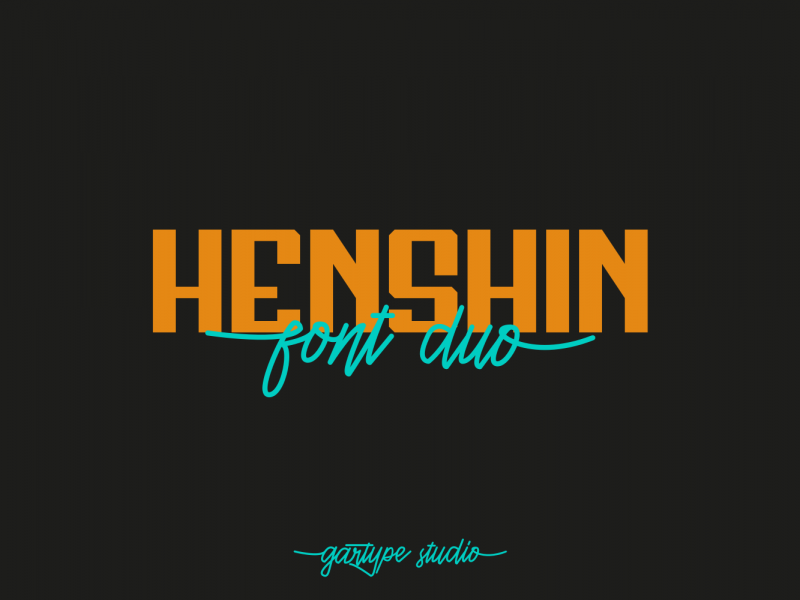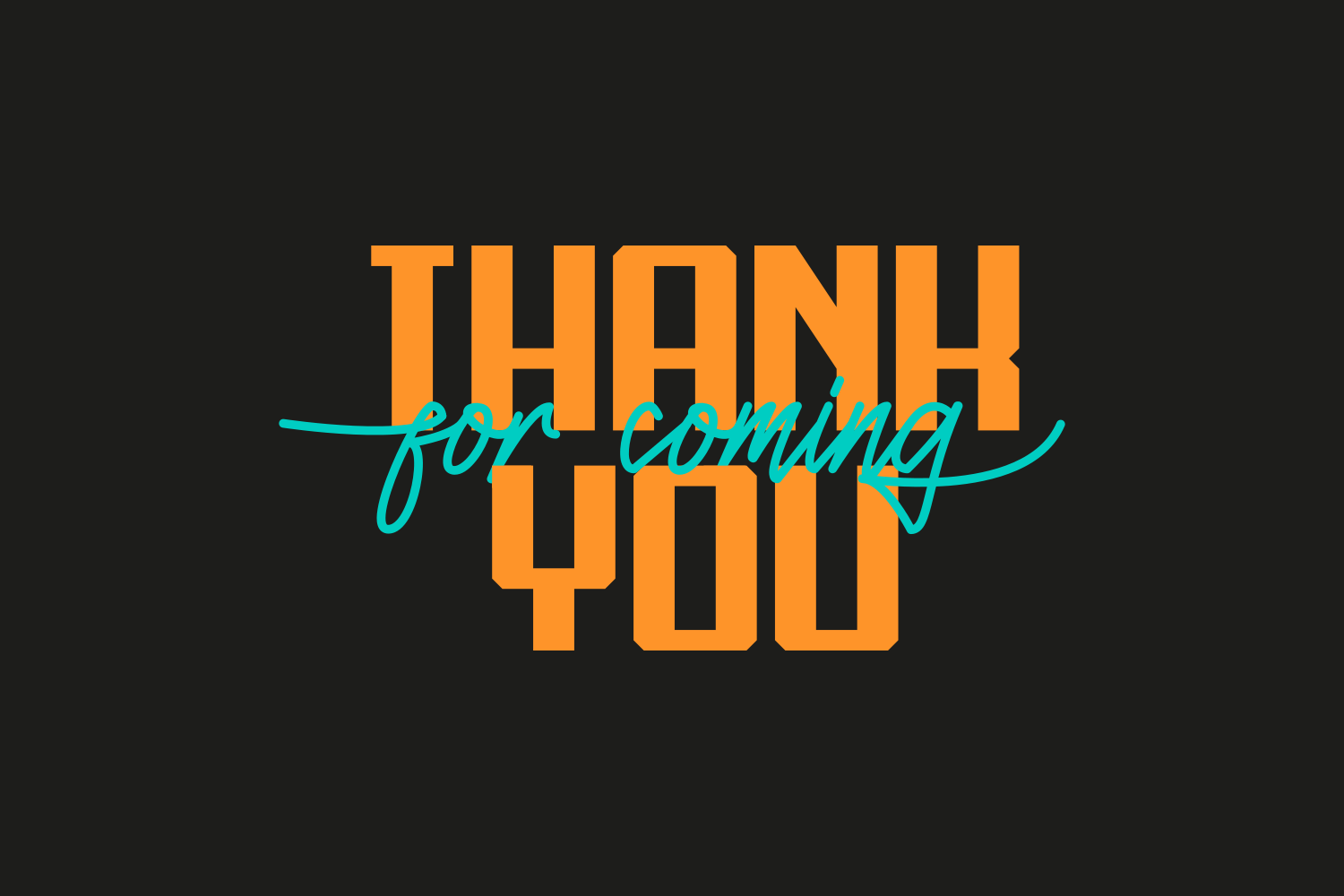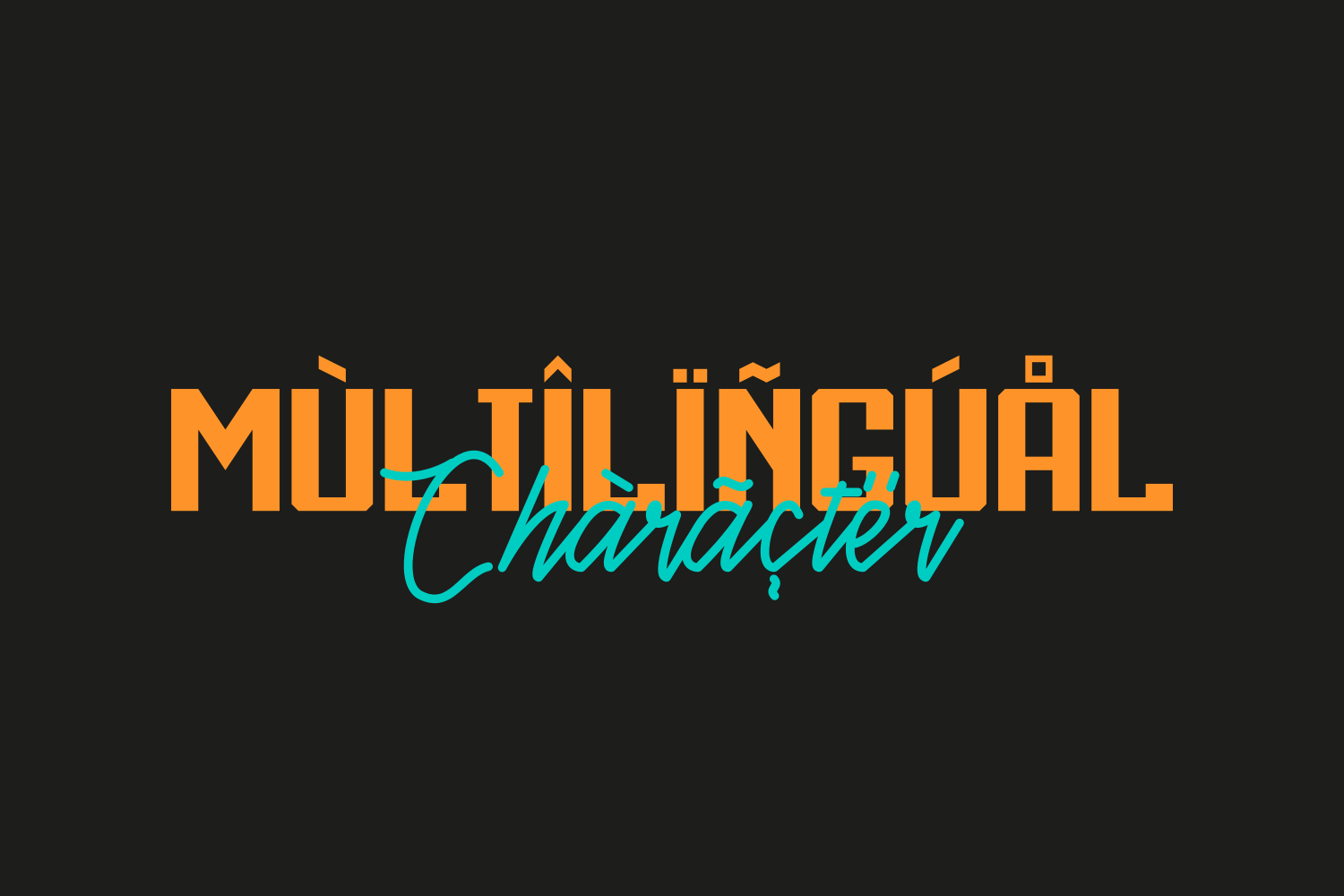
Henshin Script Font
Knowing the font duo is very good products,then we also make our new product in font duo category. Introducing Henshin font duo is a combination of sans and script fonts that combine elements of classical, elegant, bold, and flexible.Henshin is suitable for advertise your products such as food,the menu at the cafe, restaurant and more.
Henshin is also very suitable for the mix for wedding invitations, music albums, music concerts, magazine covers, website text, quote,etc.Not only that henshin sans also has 2 styles that are regular and bold to make your design more beautiful.